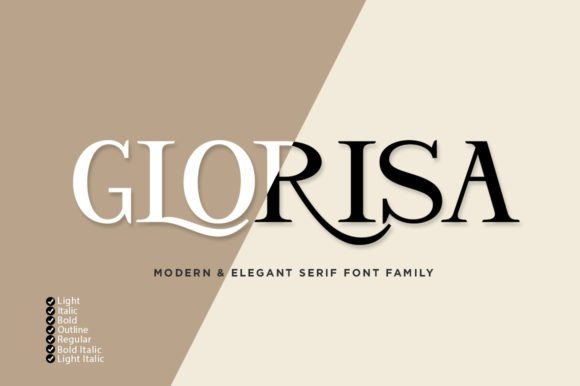
Discover Glorisa Font: The Epitome of Elegance and Style for Your Creative Endeavors
Unleash the power of Glorisa Font, a mesmerizing serif typeface that weaves a tapestry of sophistication and allure into your design projects. This captivating font family, meticulously crafted by the renowned Black Studio, transcends the boundaries of ordinary typography, offering a symphony of visual elegance and versatility.
Glorisa's graceful curves and refined serifs evoke a sense of timeless beauty, imbuing your creations with an air of luxury and distinction. Its versatile nature allows it to shine in both large and small sizes, making it an ideal choice for a wide range of applications.
Immerse yourself in the world of editorial projects, where Glorisa's eloquence will elevate your words into a symphony of visual artistry. Adorn magazine headers with its commanding presence, capturing the attention of readers with its captivating allure.
Harness the power of Glorisa to craft logos that radiate professionalism and memorability. Its distinct character will leave an indelible mark on your brand's identity, ensuring that your message resonates with your audience.
Unleash your creativity in the realm of product packaging, where Glorisa's timeless beauty will transform ordinary products into objects of desire. Its ability to showcase both masculine and feminine qualities makes it a versatile choice for a diverse range of products.